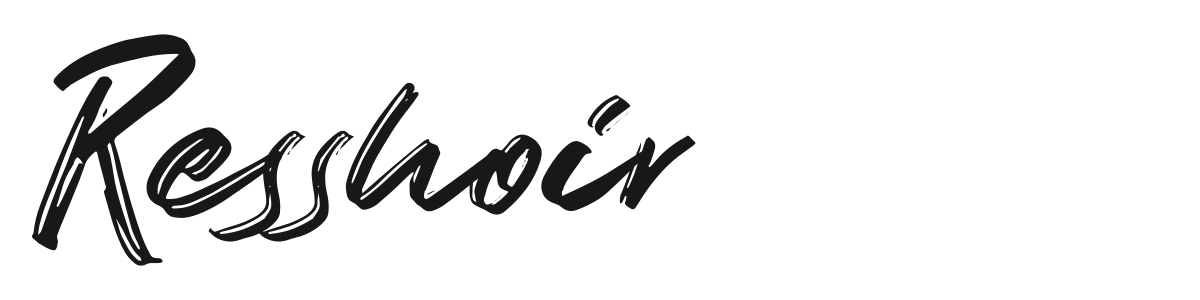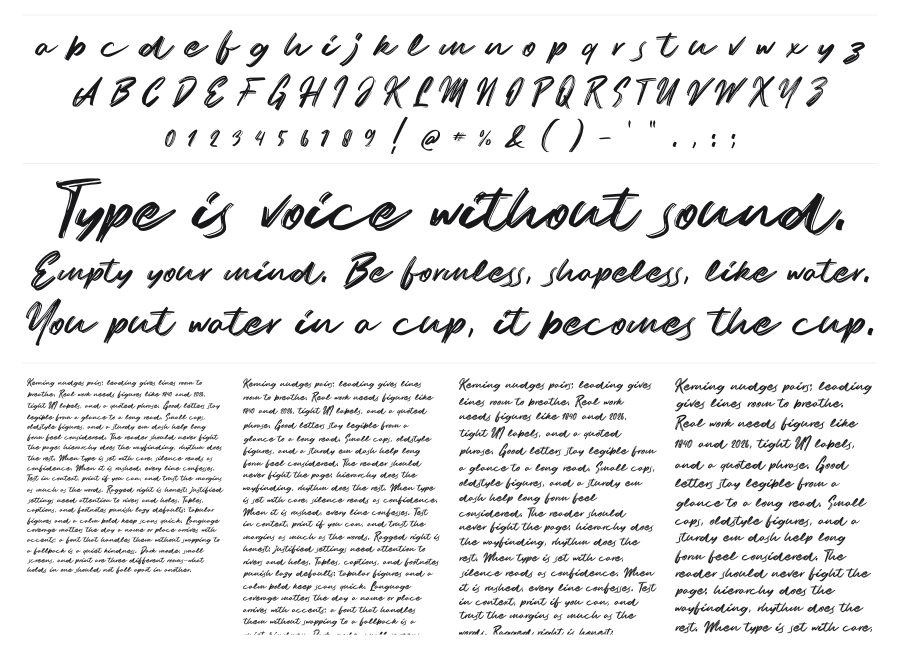
Resshoir
Resshoir is a casual brush script with the loose, ink-dragged energy of hand-lettering done at speed. Strokes vary naturally in weight and the connecting lines carry visible brush texture that keeps it from feeling digital or stiff. It has the kind of raw, confident warmth that works well for brand identities that want to feel handcrafted.